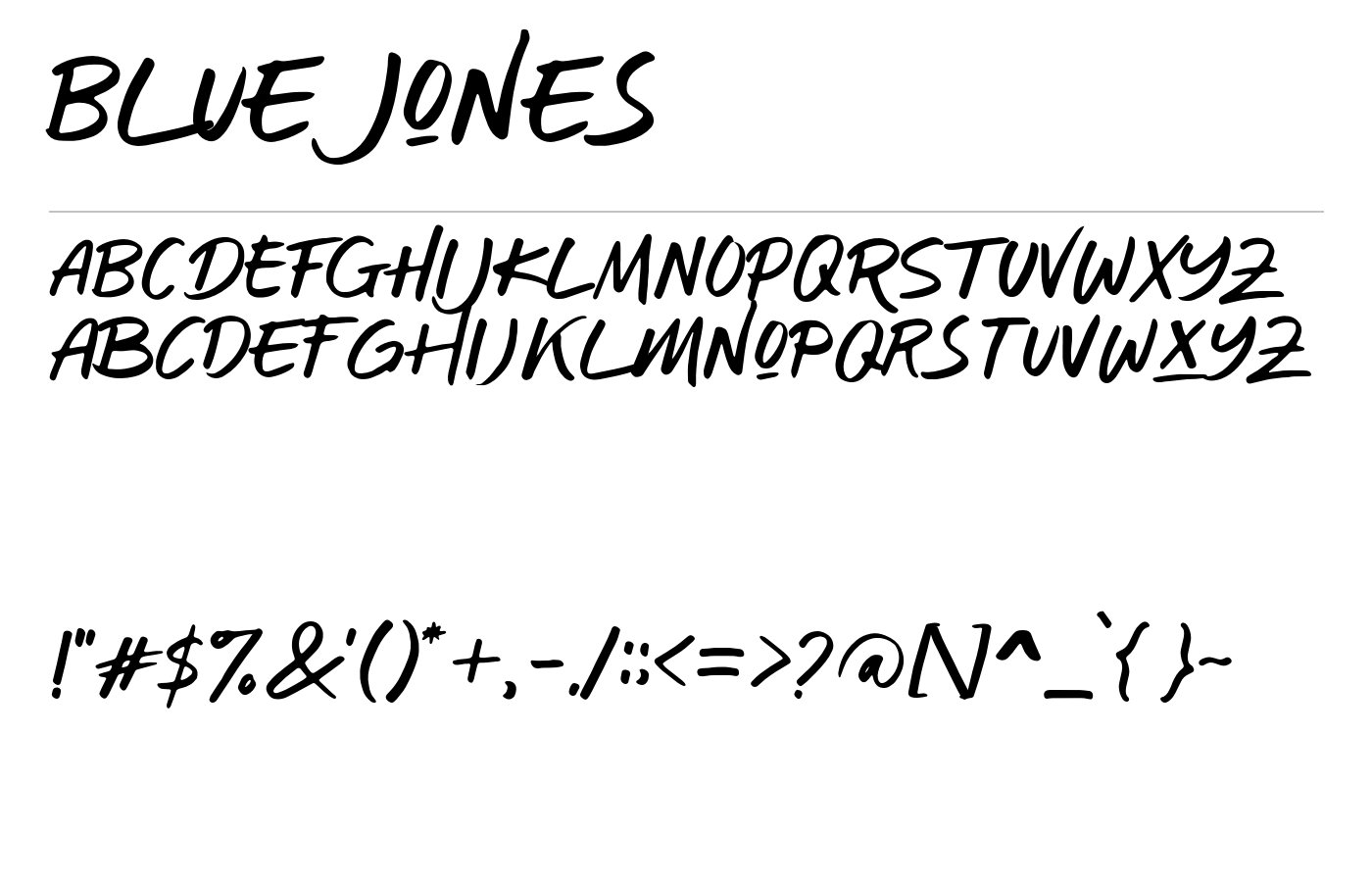
Blue Jones is a casual, handwritten script font with an energetic and playful character. Its brush-like strokes and slightly irregular letterforms give it a friendly, approachable feel, perfect for informal designs, creative branding, and eye-catching headlines. This font works especially well for projects needing a personal touch or a dynamic, modern vibe.
Blue Jones Font
About Blue Jones Font
| Font family | Blue Jones Font |